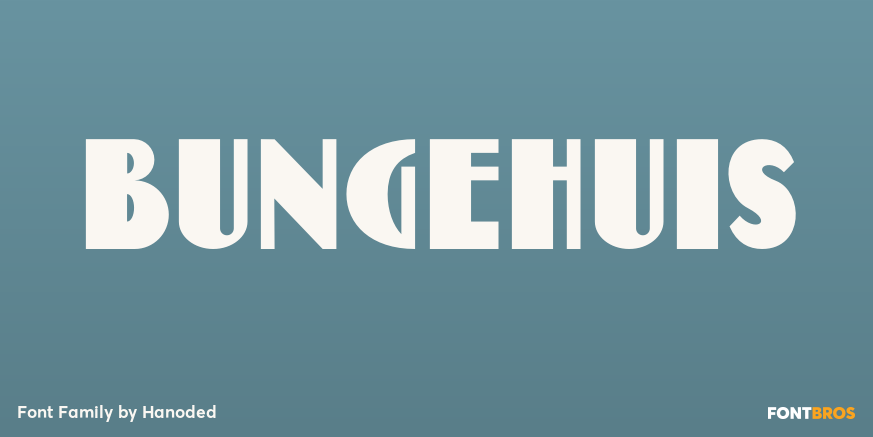
Bungehuis
About Bungehuis
Bungehuis font was modeled on the lettering found on an Amsterdam art deco building from 1931. This building on the Spuistraat, also called \’Het Bungehuis\’, used to house offices, but is now part of the University of Amsterdam. In 2015 it had its brief…